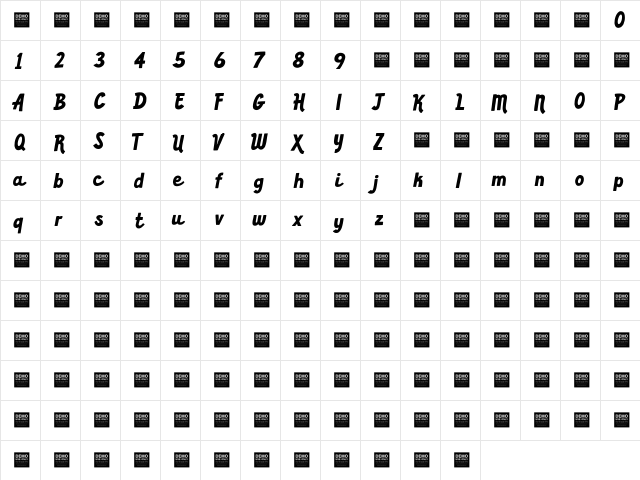
Basic Definition - Demo Regular
| Foundry | BLKBK |
Basic Definition - Demo is a composed and adaptable typeface that performs quietly and consistently across a wide range of design contexts.